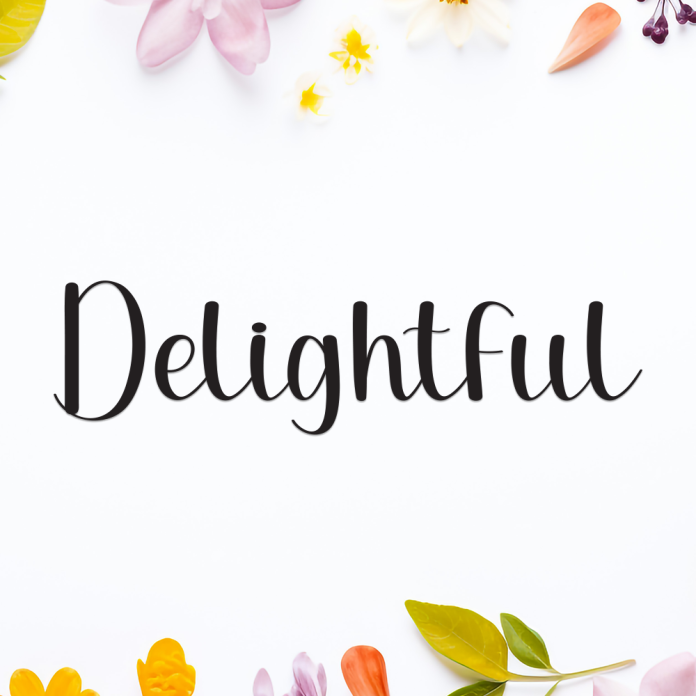
Delightful is a graceful handwriting font that combines natural flow with a cheerful personality. With soft curves and smooth strokes, it brings warmth, friendliness, and a touch of elegance to any project.
Whether you're creating invitations, logos, quotes, or social media posts, Delightful adds a handwritten charm that feels both personal and polished.
Handwriting style with a joyful tone
Smooth and fluid letterforms
Perfect for branding, stationery, and digital designs
Works great in both headings and body text
Bring a spark of delight into your words with Delightful – where every stroke is filled with heart!